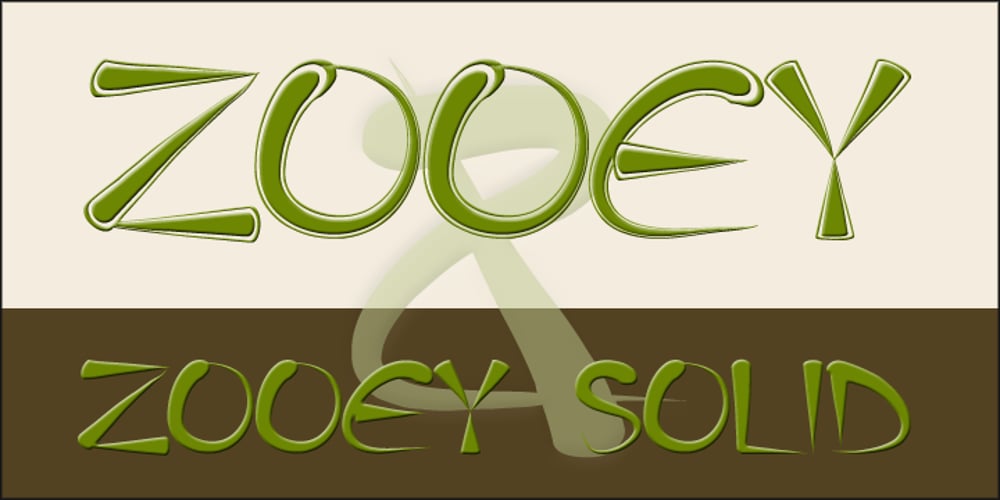
Zooey
Zooey font
Zooey Font Family was designed by Alec Julien and published by Haiku Monkey. Zooey contains 2 styles and family package options. Zooey is bold but delicate, fun but serious, elegant with a touch of disingenuous goofiness. It shines at large point sizes, where its interesting strokes really stand out.